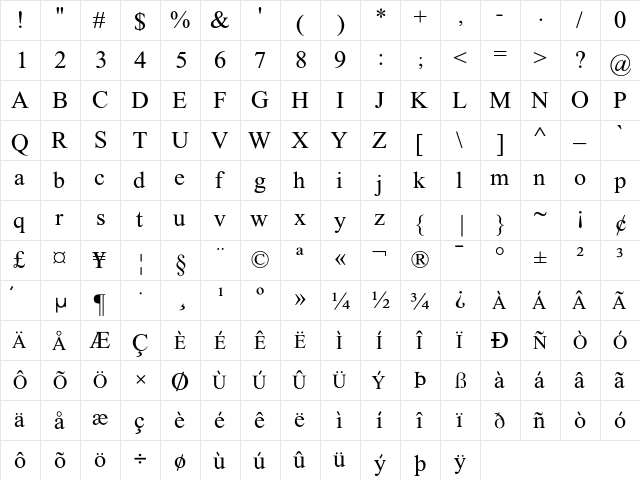
AttikaU Regular
| Foundry | Donald Mastronarde, after Jeffrey Rusten |
| Designer | Donald Mastronarde, after Jeffrey Rusten |
Design Context for AttikaU Typeface
AttikaU takes a measured approach to typography — its balanced proportions and neutral character make it a reliable workhorse for both digital and print work.